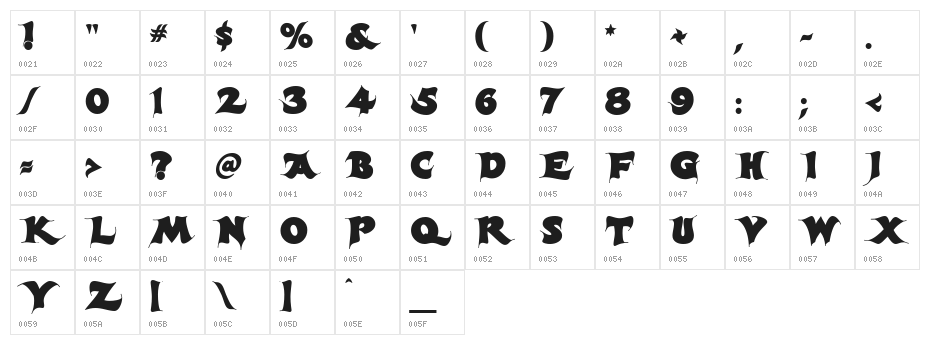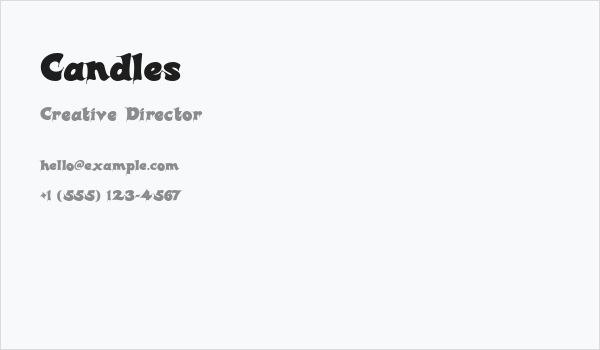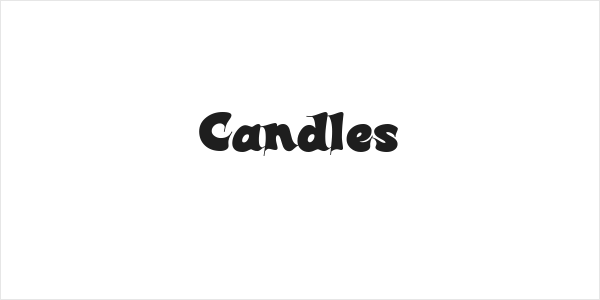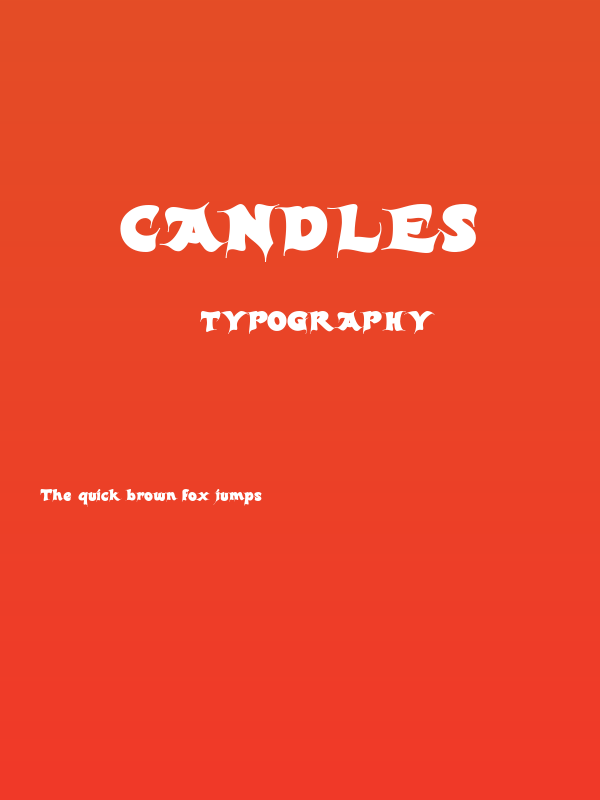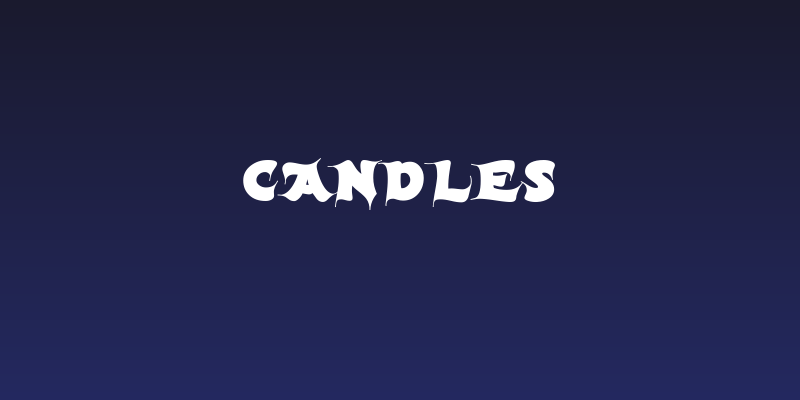
Candles Font
Candles Description
This font features a bold, dramatic style with a strong presence. The characters have a unique, flowing design with sharp edges and pointed tips, reminiscent of flames or gothic elements. The uppercase letters are particularly striking, with exaggerated curves and angles that create a sense of movement and intensity. The lowercase letters maintain this dynamic feel, with consistent thickness and bold strokes. Numbers and special characters follow the same aesthetic, ensuring a cohesive look across all text elements. This font is ideal for making a bold statement and capturing attention.
Proposed ProjectsPerfect for album covers, posters, branding for edgy or alternative products, and any project needing a bold, eye-catching typeface.